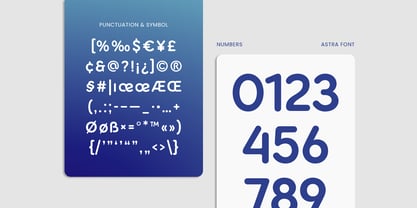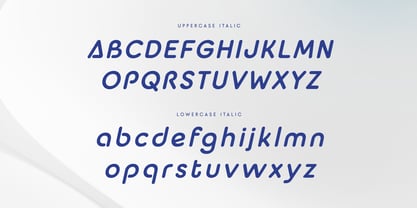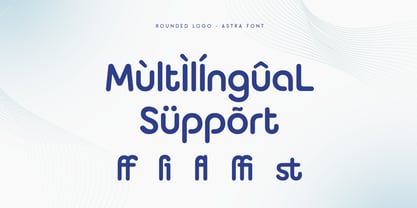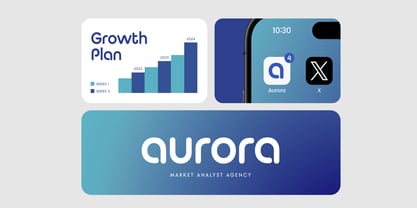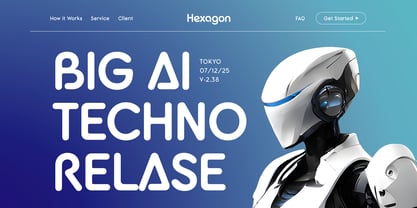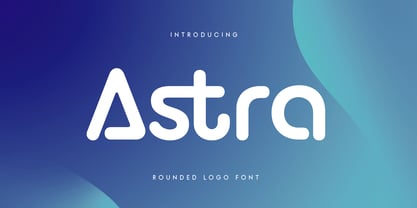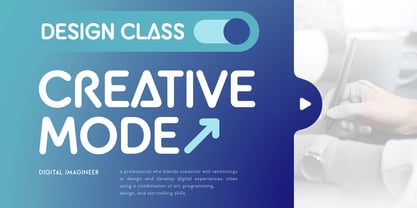
Astra SS
von Sensatype Studio
Die Schriftfamilie Astra SS wurde von Zamroni Hamzah entworfen und von Sensatype Studio veröffentlicht. Astra SS enthält 2 Stile und Familienpaketoptionen.
Astra is a modern rounded logo font designed to add a playful yet professional touch to any brand identity. Its soft, smooth curves give it a friendly and approachable look, making it perfect for logos, product packaging, and creative design projects that need a touch of warmth and simplicity. Astra's sleek design ensures it stands out while keeping your branding modern and minimalist.
With its rounded and clean edges, Astra brings a fresh, contemporary feel to any project. Whether you’re designing for tech startups, lifestyle brands, or personal projects, this font is versatile enough to adapt to different industries and styles while maintaining its charm and legibility.
Astra comes with alternative characters and full multilingual support, giving designers the flexibility to create logos and visual content that reflect the brand’s unique personality. Its combination of style, simplicity, and functionality makes Astra a go-to font for modern branding projects.
Astra Rounded Logo Font Features:
• Rounded Ligature Characters Ready
• Unique Punctuation, Number, and Symbol
• Uppercase and Lowercase
• Multilingual Support
• Opentype Features
Designer: Zamroni Hamzah
Herausgeber: Sensatype Studio
Foundry: Sensatype Studio